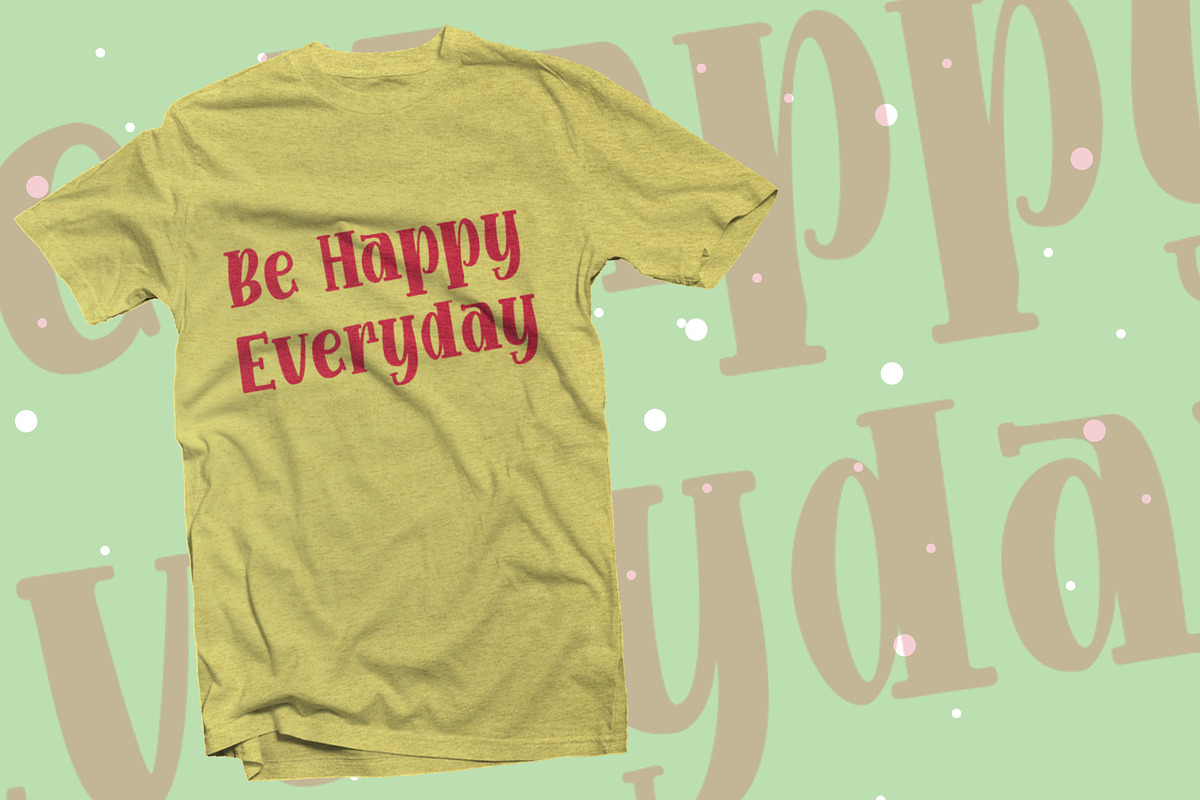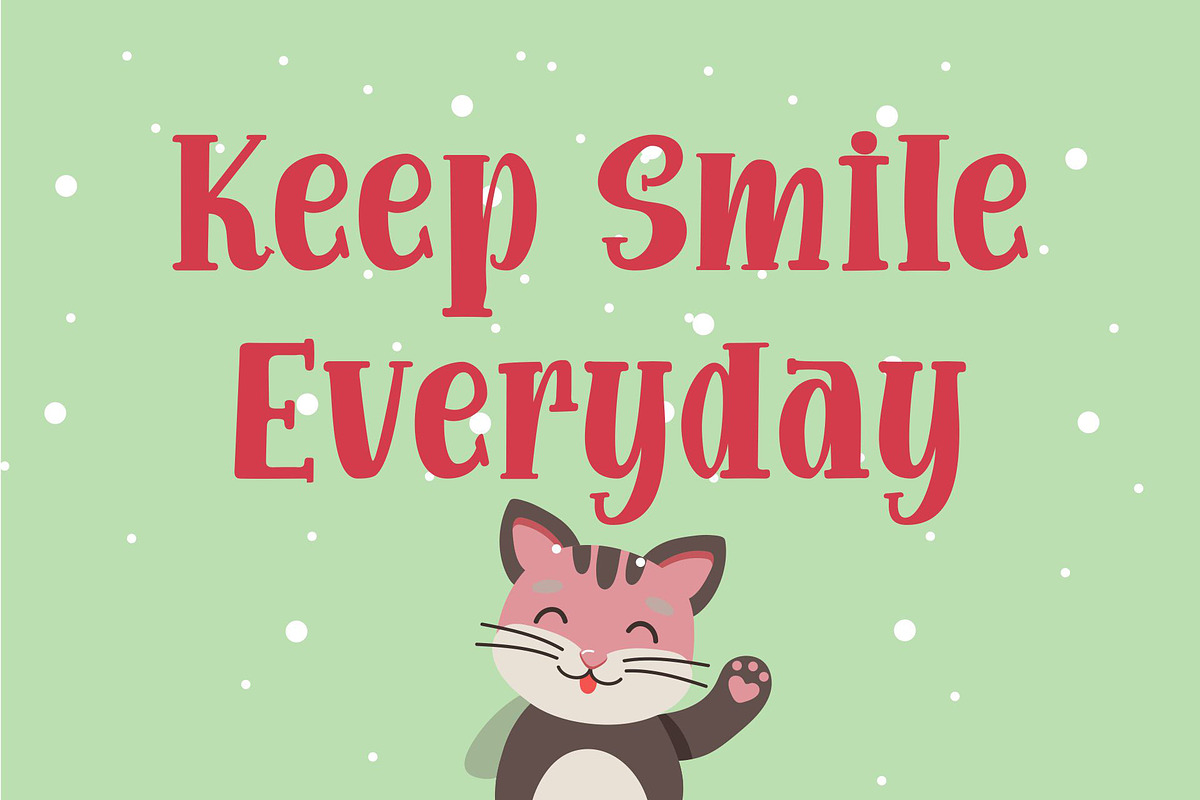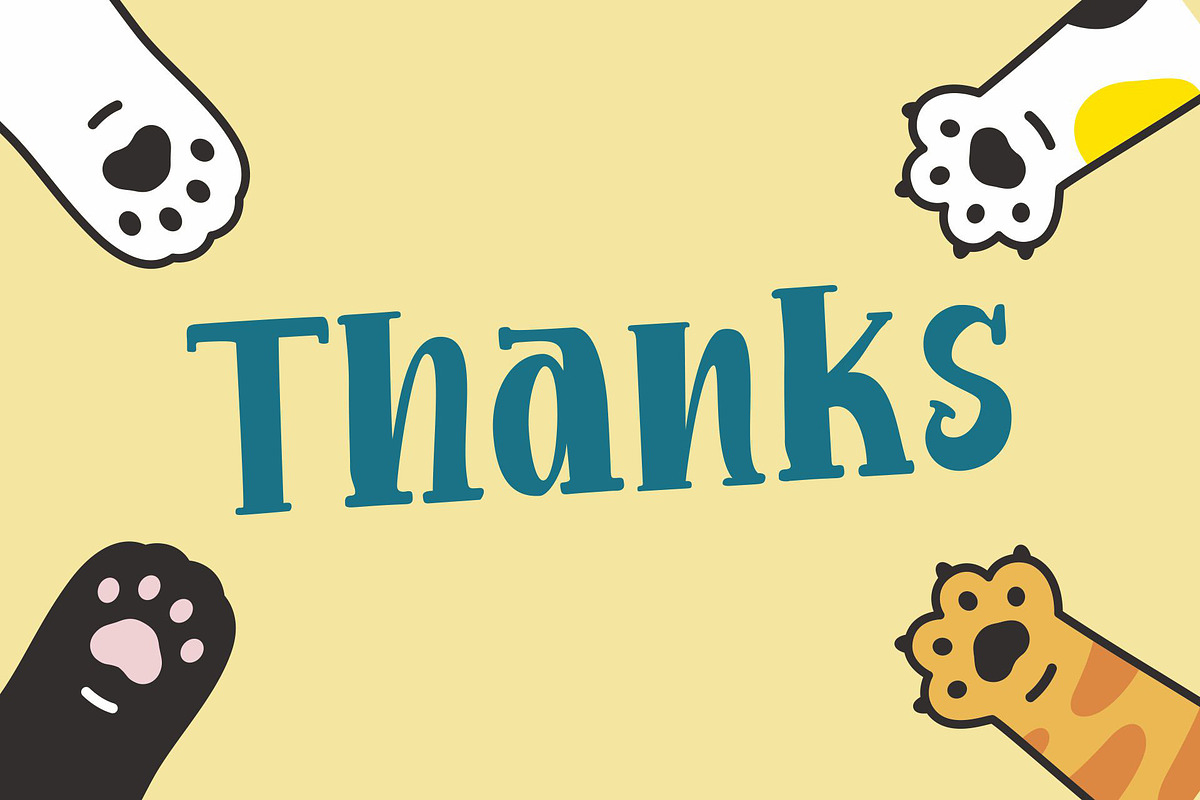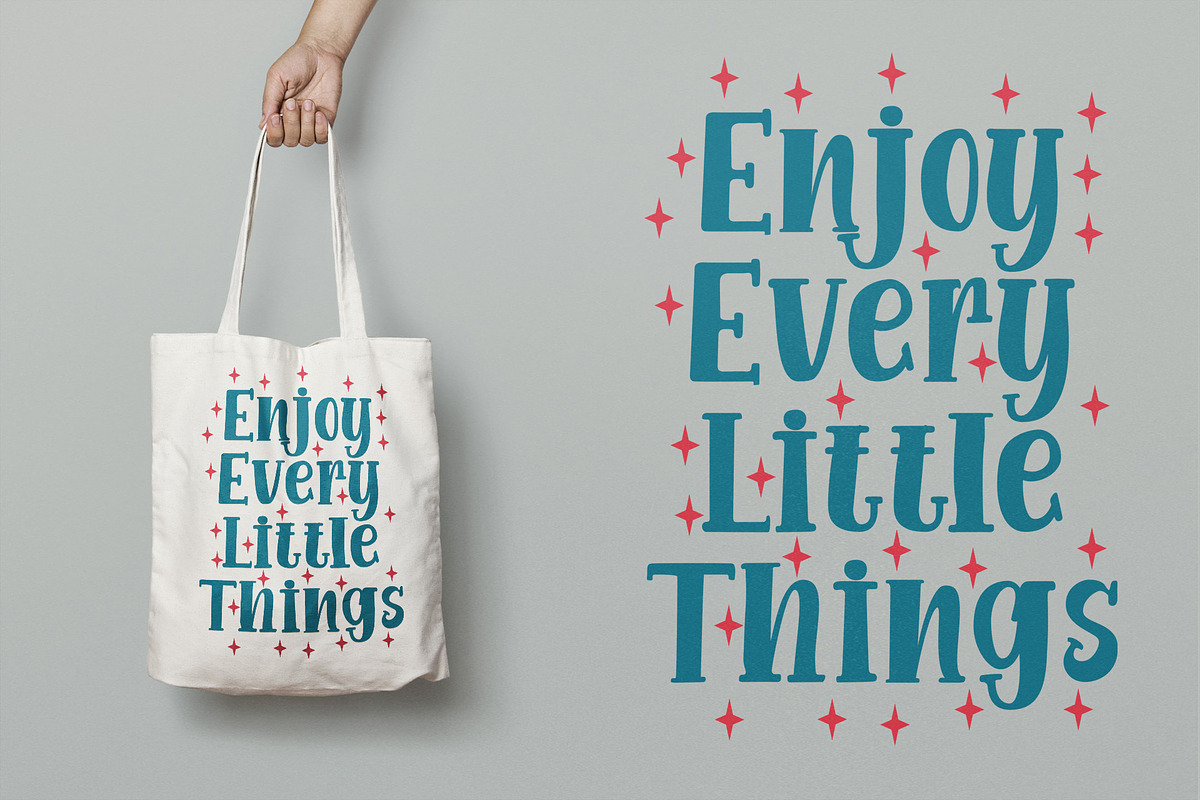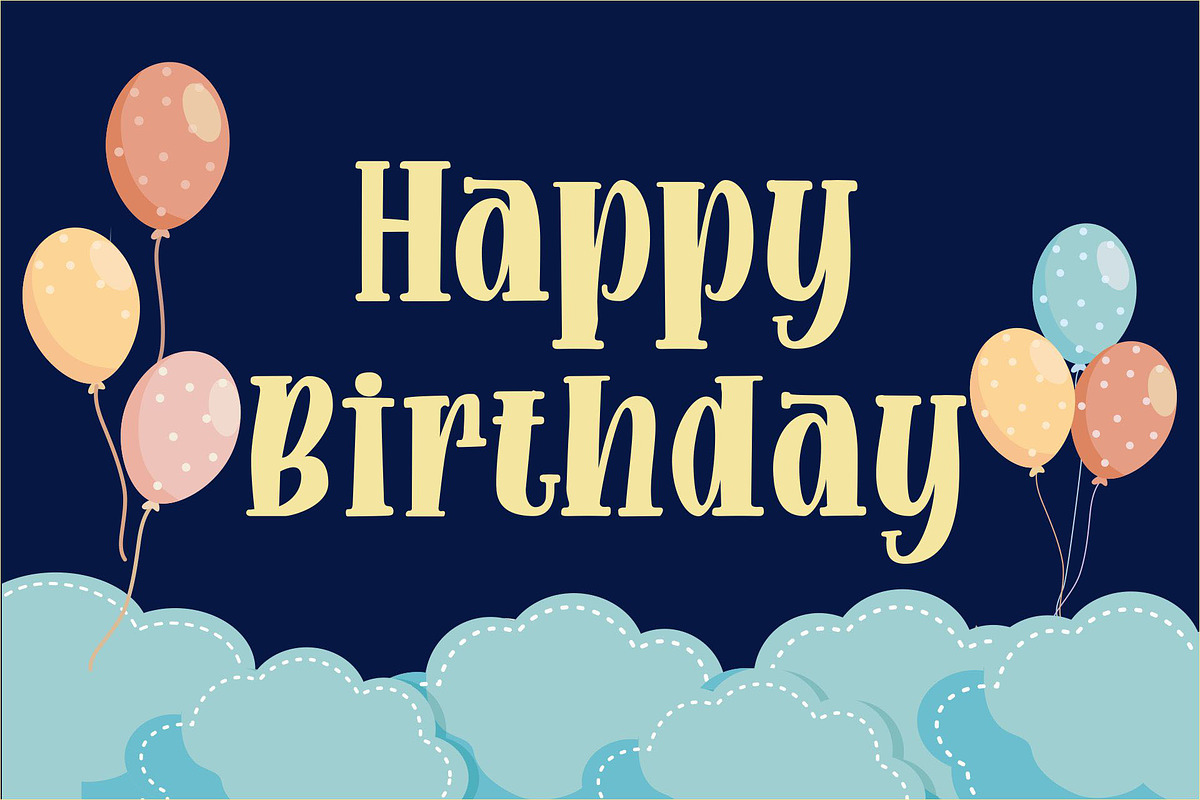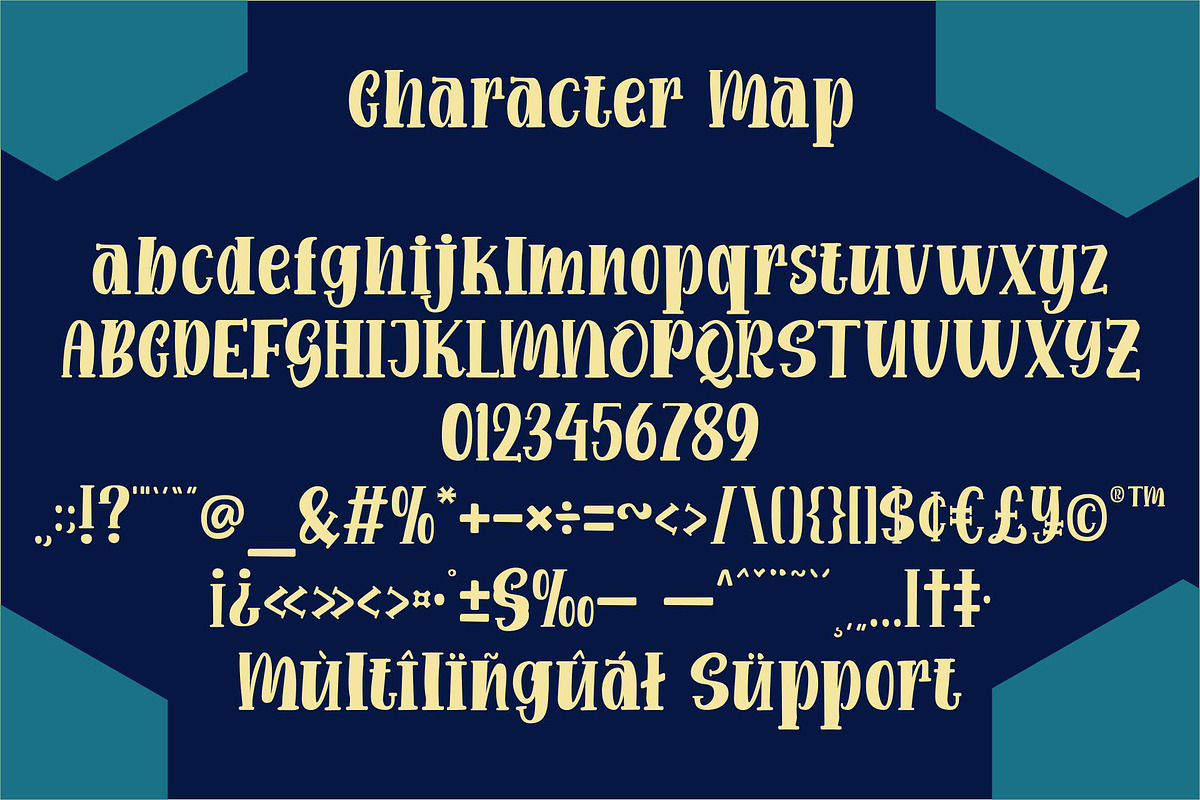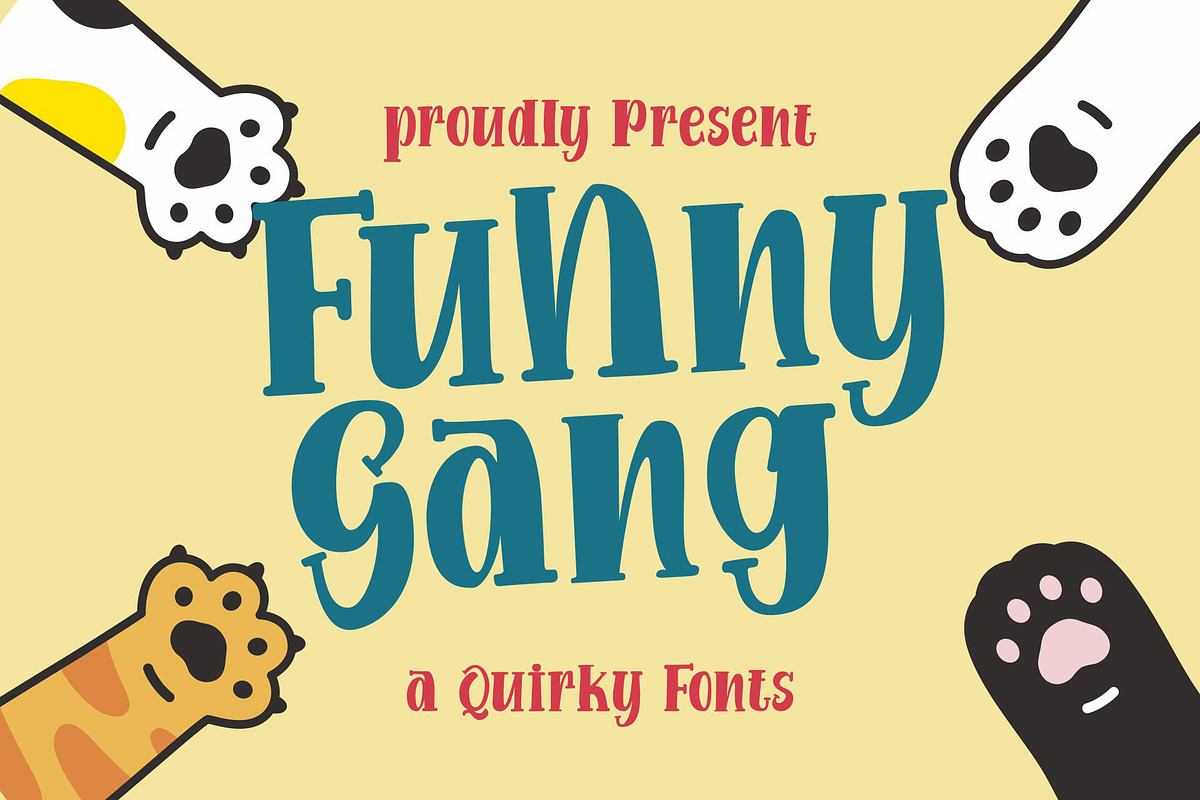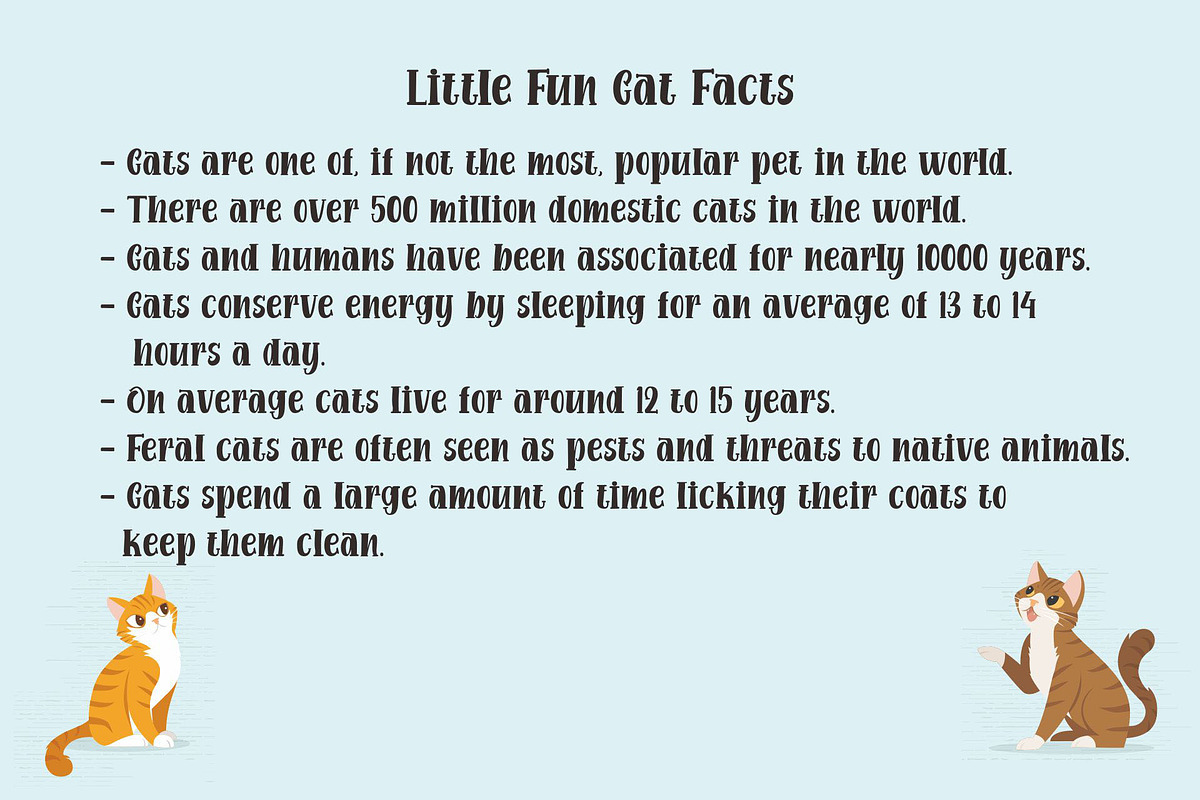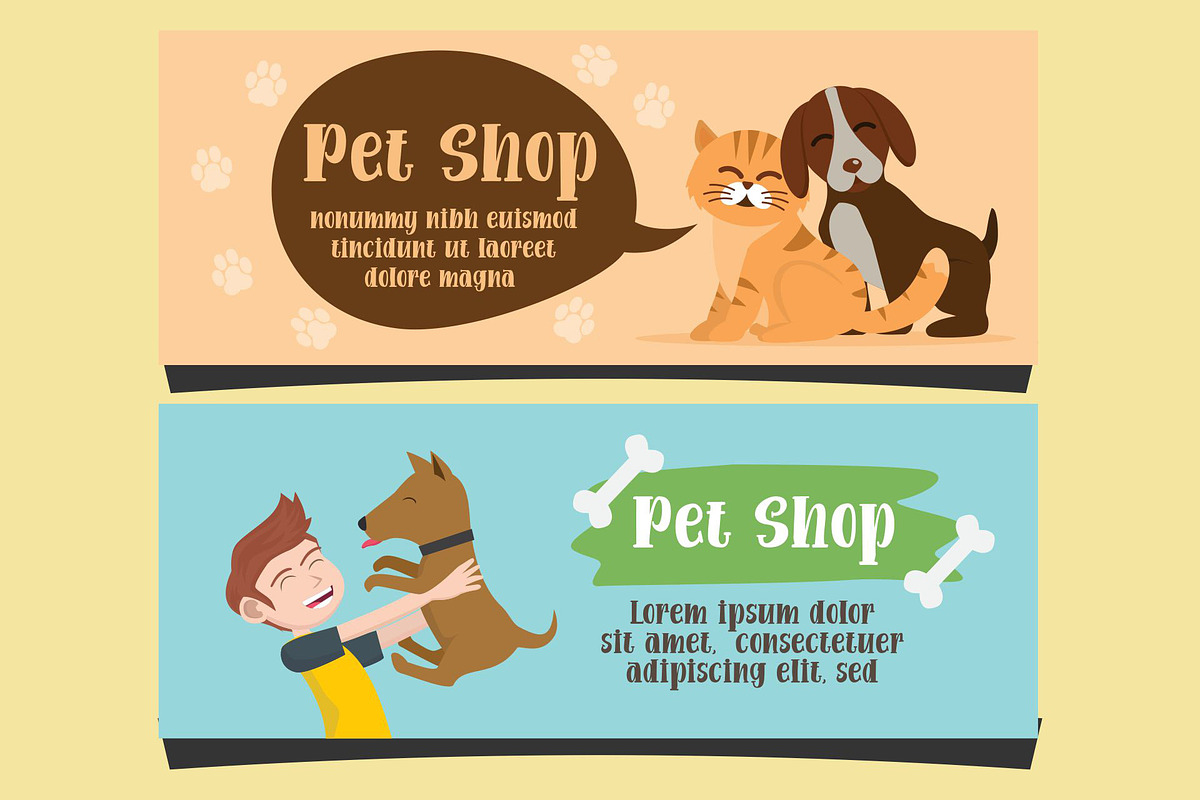
Funny Gang
Introducing of our new product the name is Funny Gang a Quirky Font. Funny Gang inspired by bouncy quirky. this font is a fun theme very good for, book cover, poster, t-shirt, quote, logotype, craft and etc
MULTILINGUAL ACCENT : ÀÁÂÃÄÅAÆÇCÈÉÊËEÌÍÎÏÑNÒÓÔÕÖØŒÙÚÛÜÝŸÞÐLSŠZZŽ àáâãäåaæçcèéêëeìíîïnñòóôõöøœùúûüµýÿþðlsšzzžß
FEATURES : Uppercase Lowercase Number Punctuation Multilingual